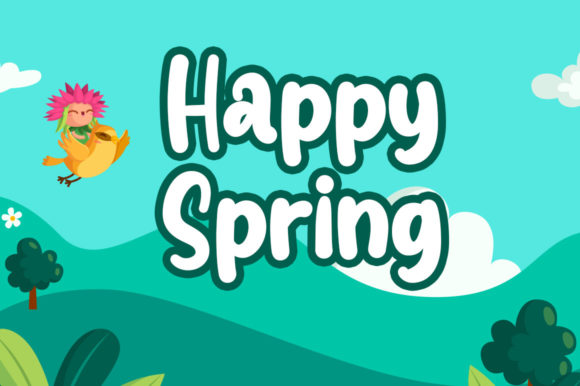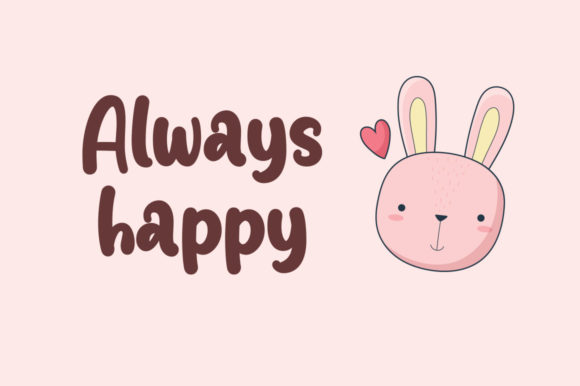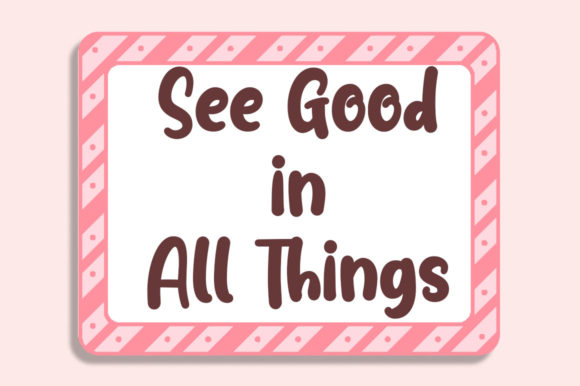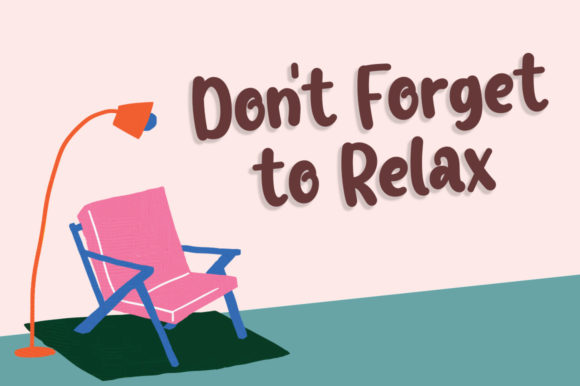
About Berthany Font
Berthany is a cool and bold handwritten font. Whether you’re looking for fonts for Instagram or calligraphy scripts for DIY projects, this font will turn any creative idea into a true piece of art!